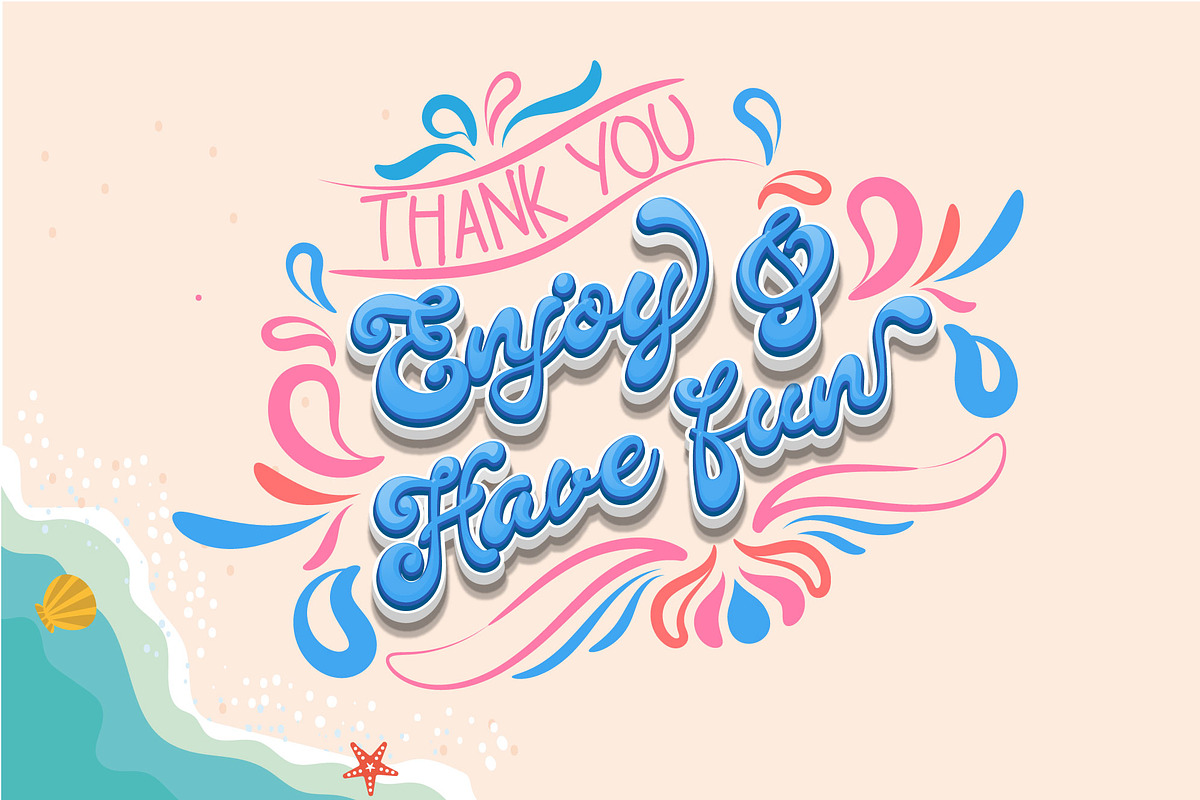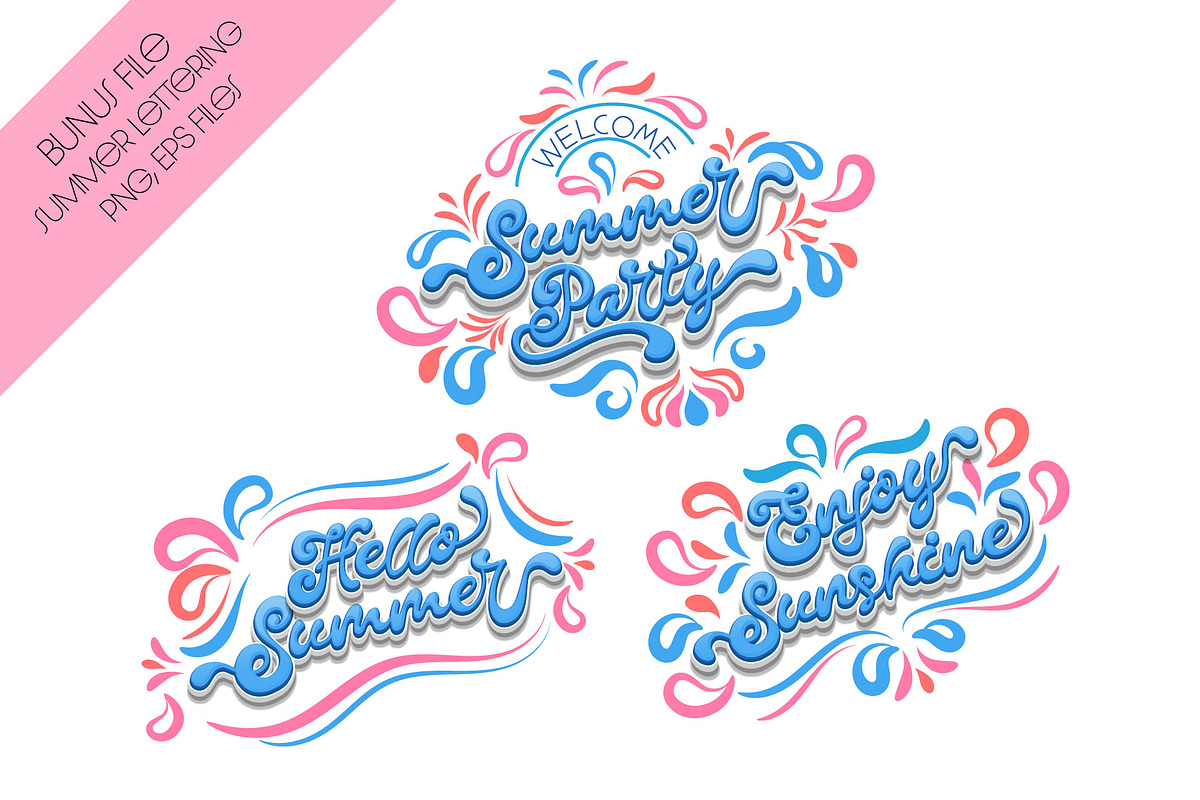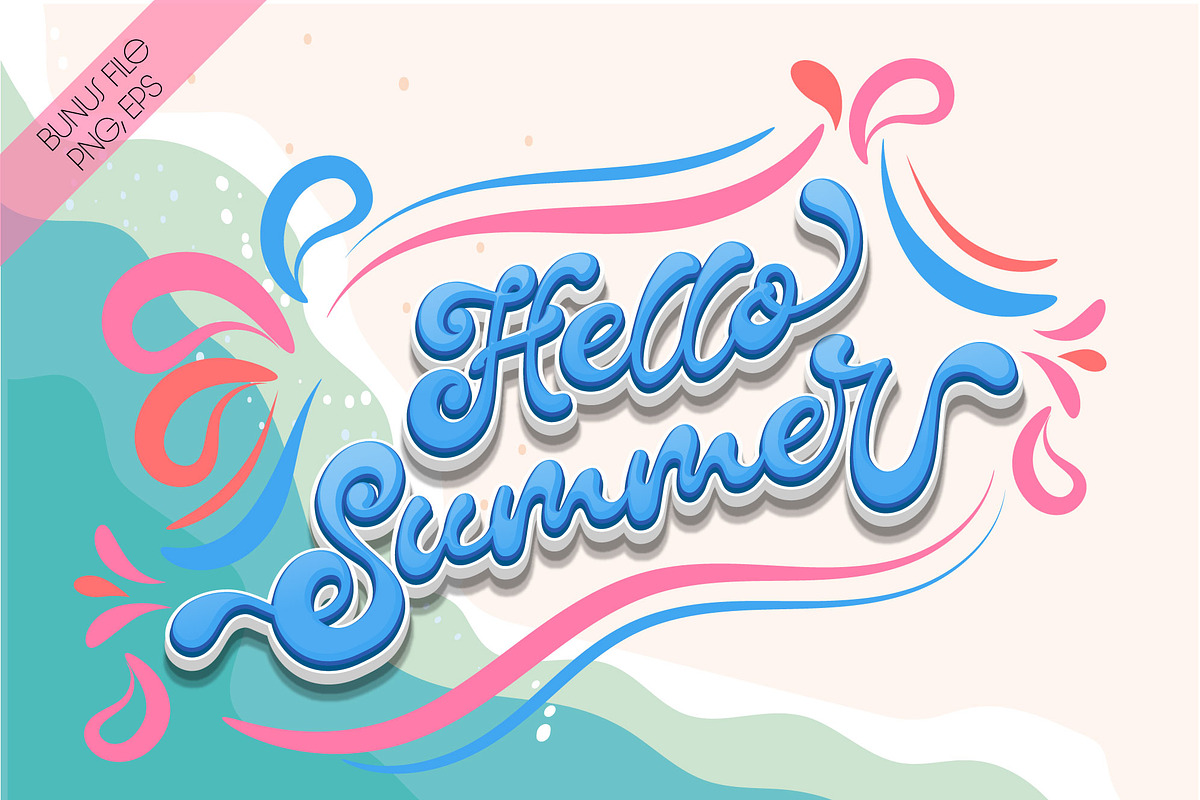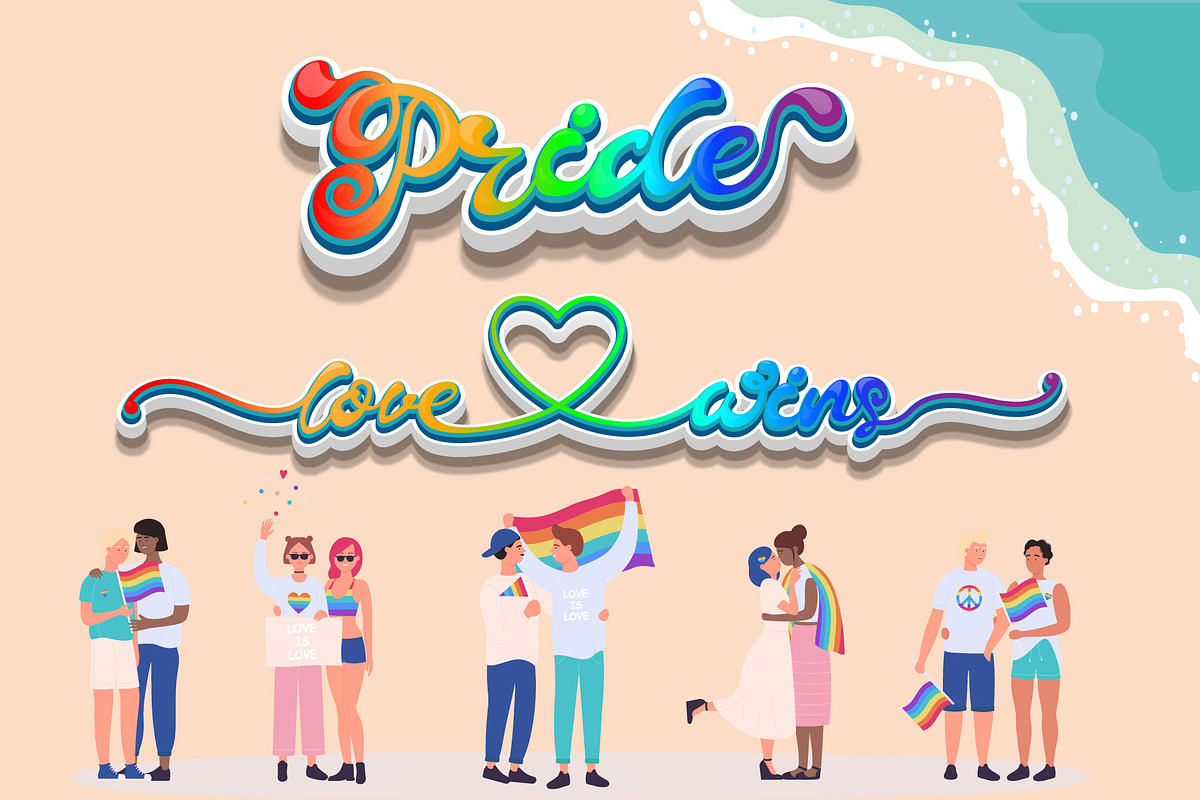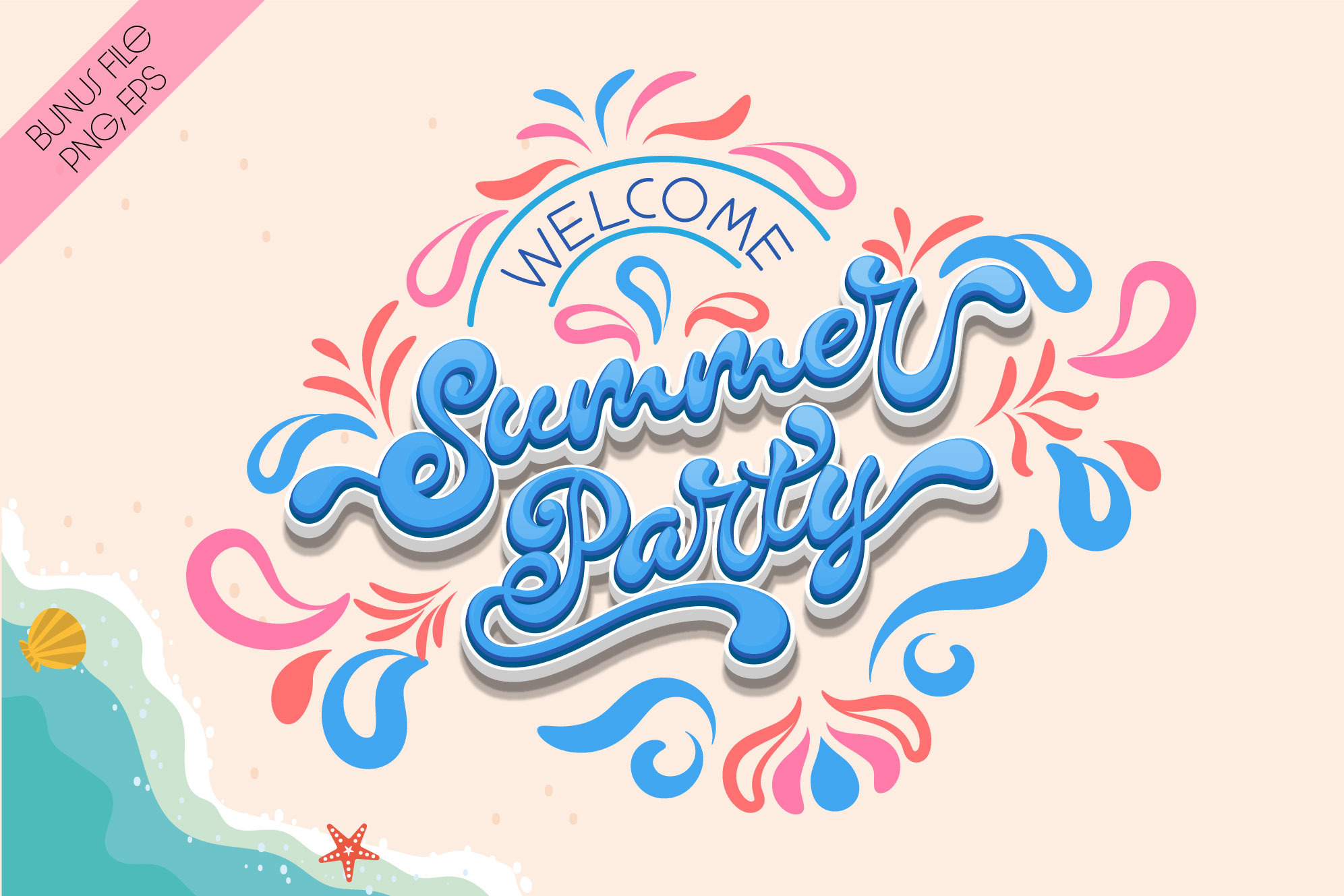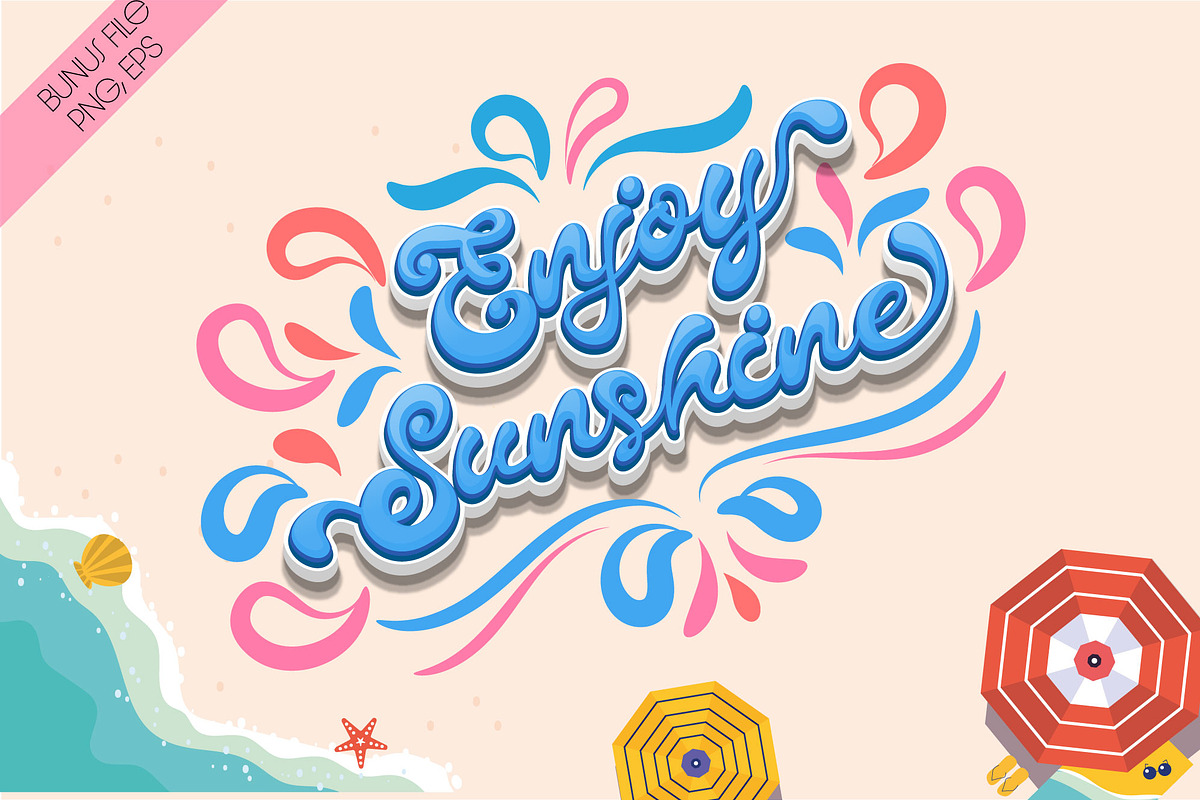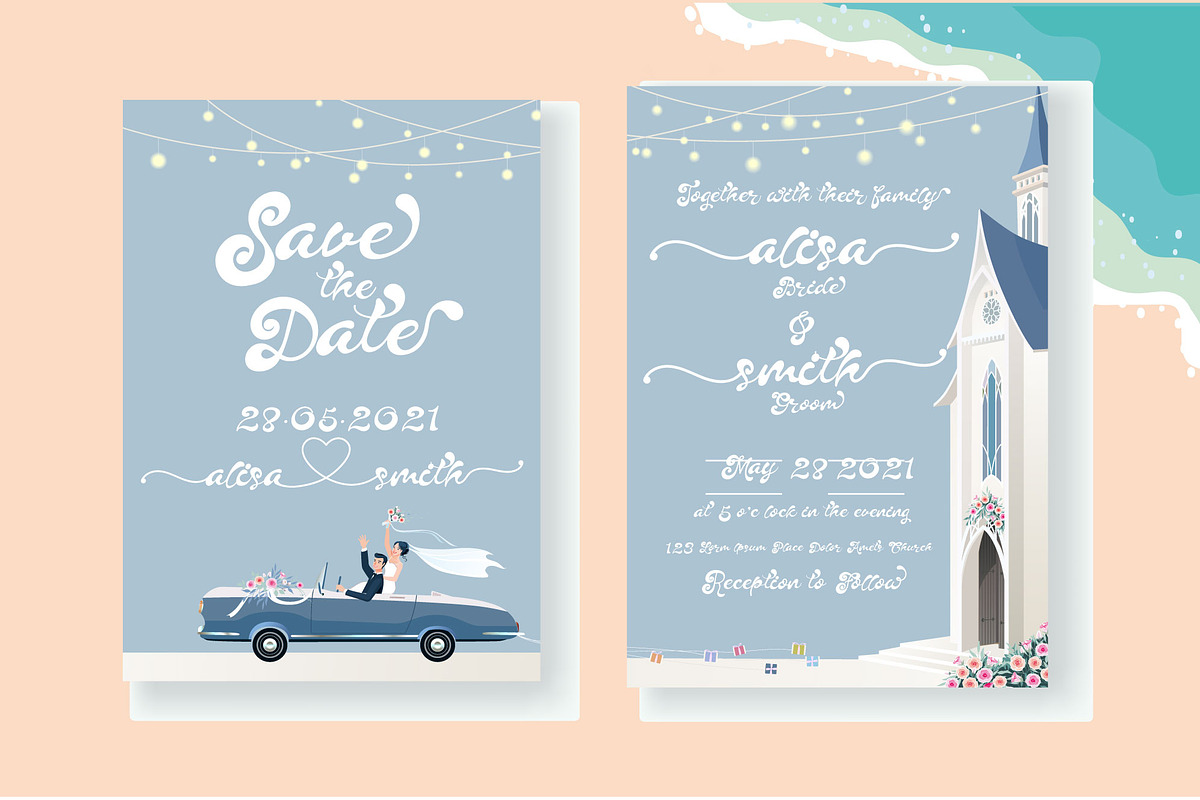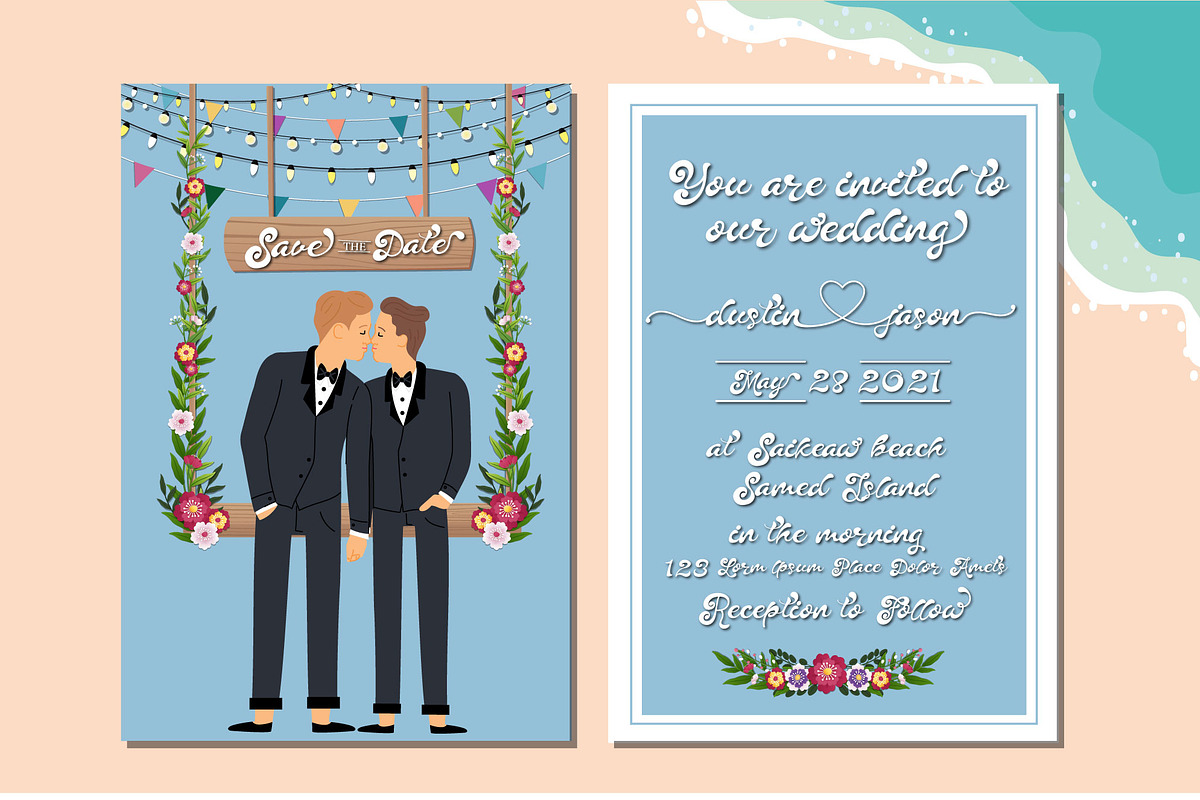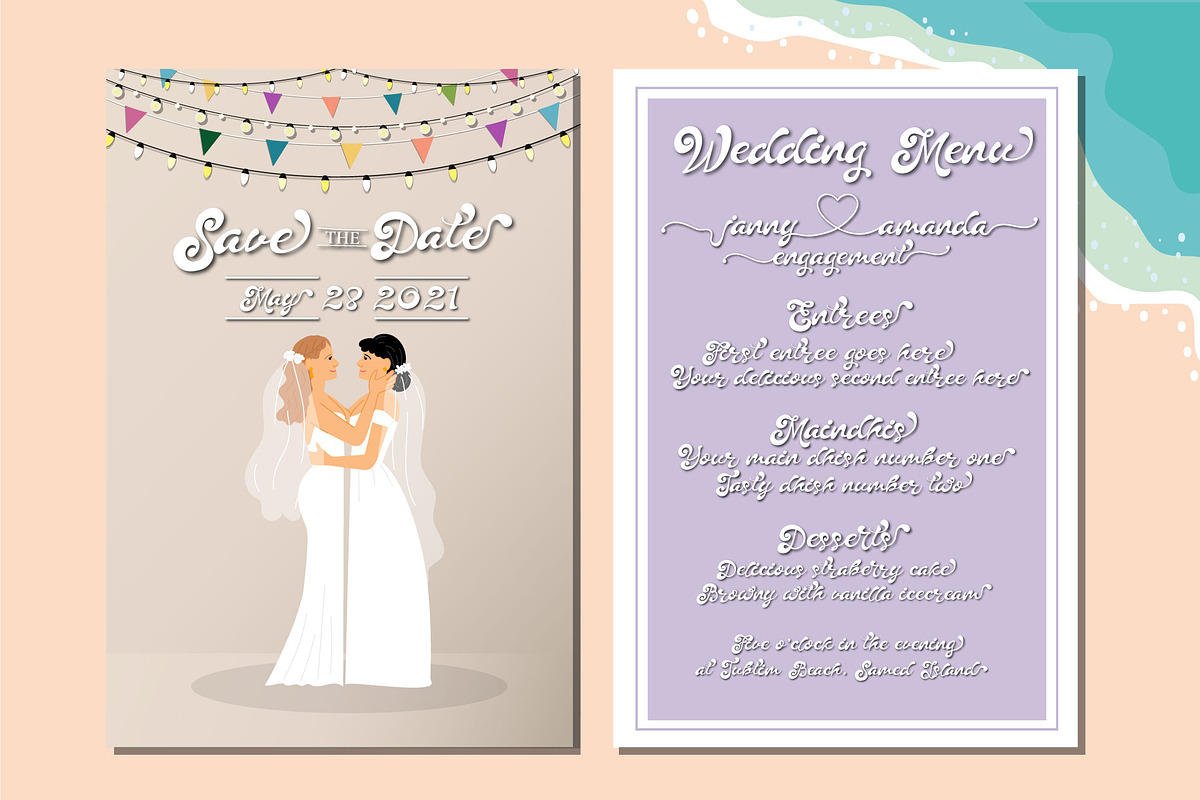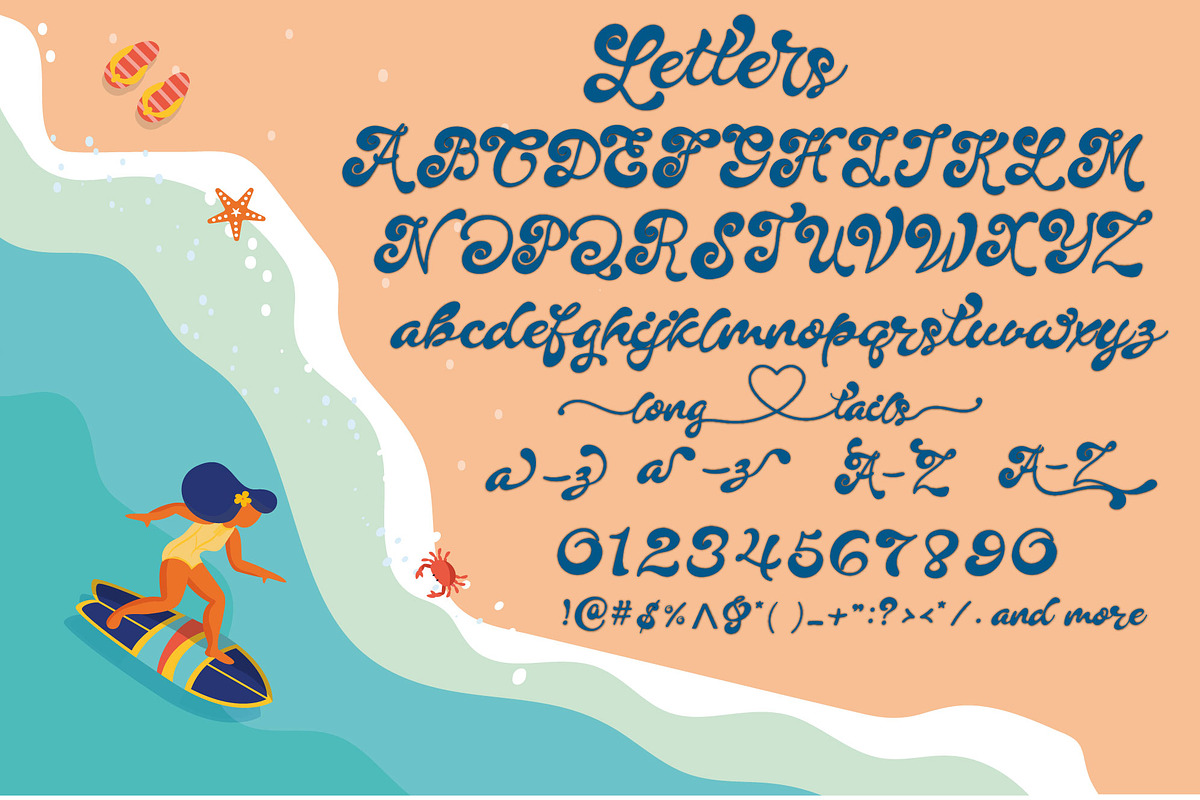
Summer Party Font
Introducing Summer Party, a modernscript font that's perfect for all your design needs! With its elegant curves and flowing lines, this font is ideal for wedding invitations, postcards, magazines, and much more. Summer Party is designed to be versatile and easy to read, making it perfect for both print and digital projects. With its playful and romantic vibe, this font will add a touch of summer fun to your designs. Download now and start adding some sunshine to your creative projects!